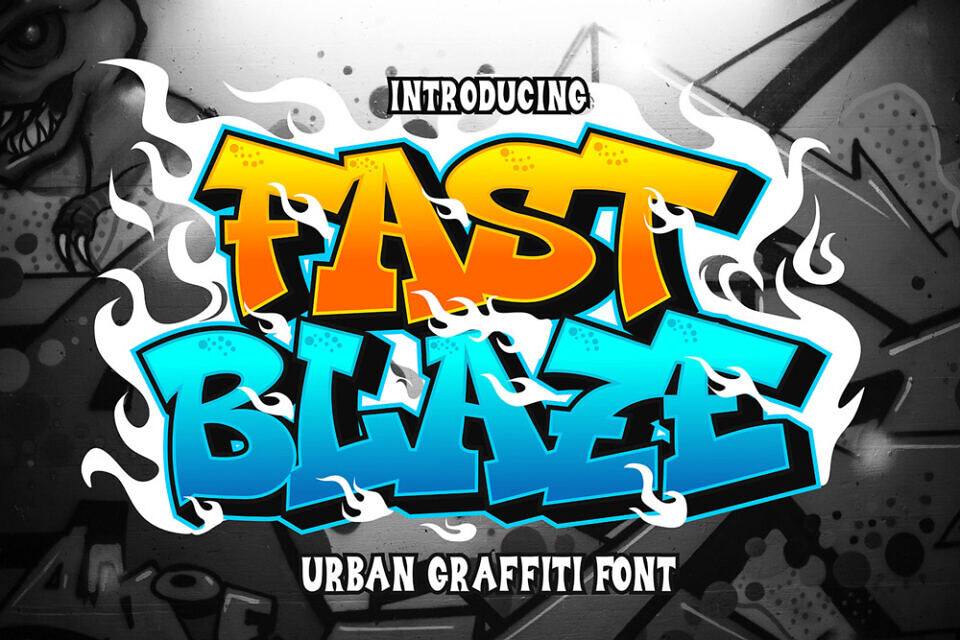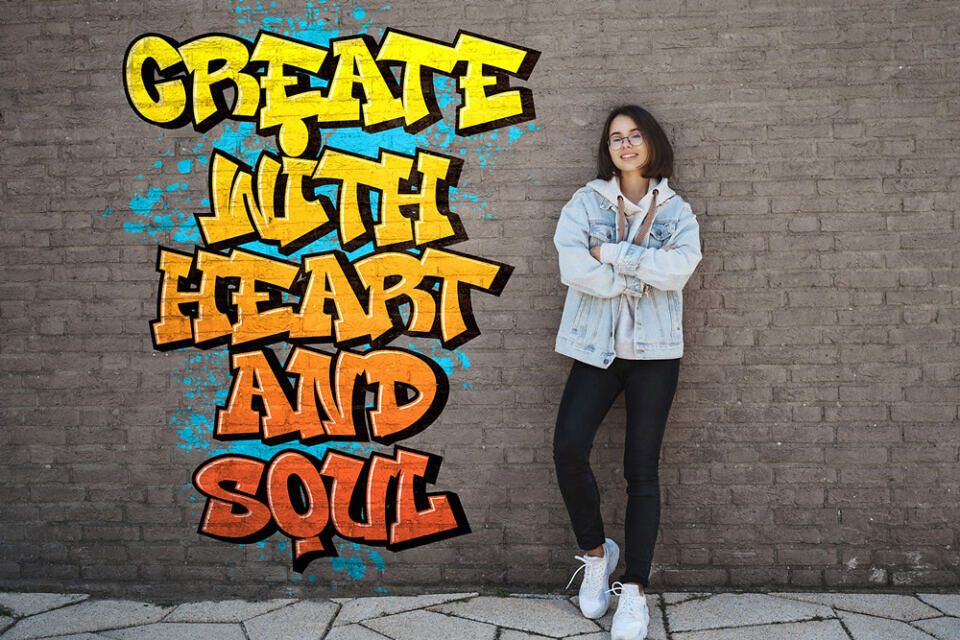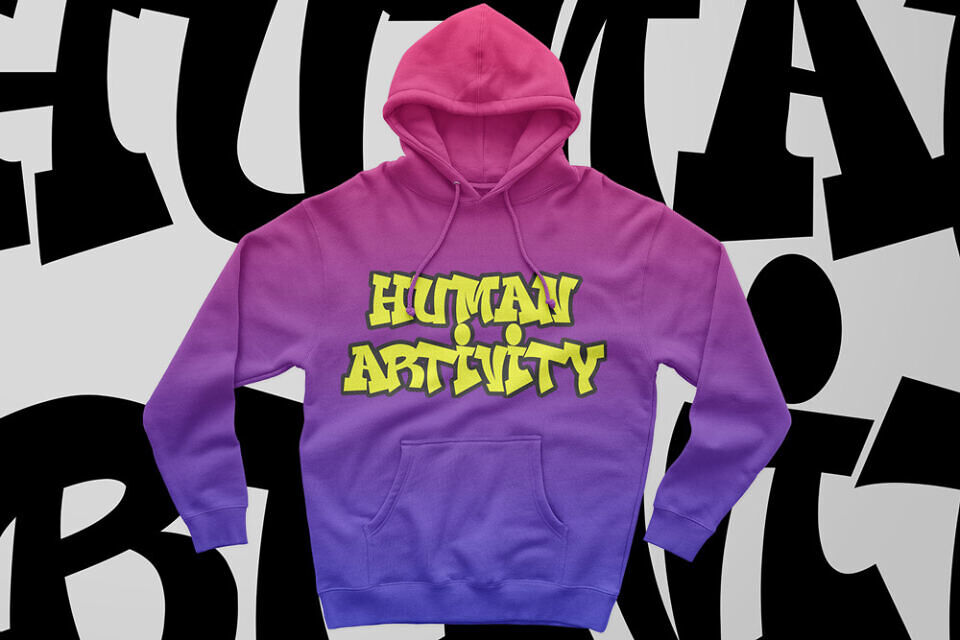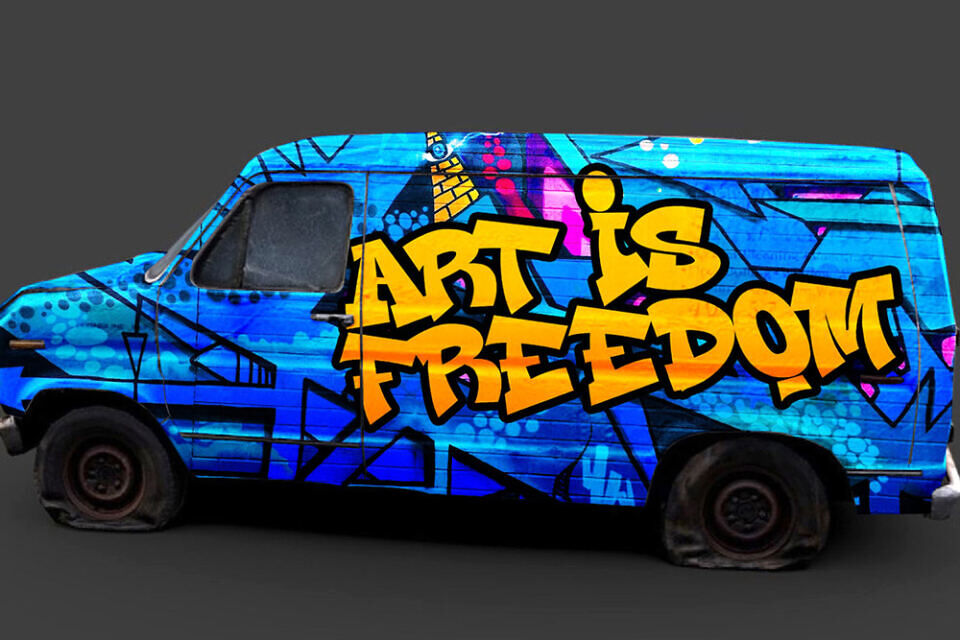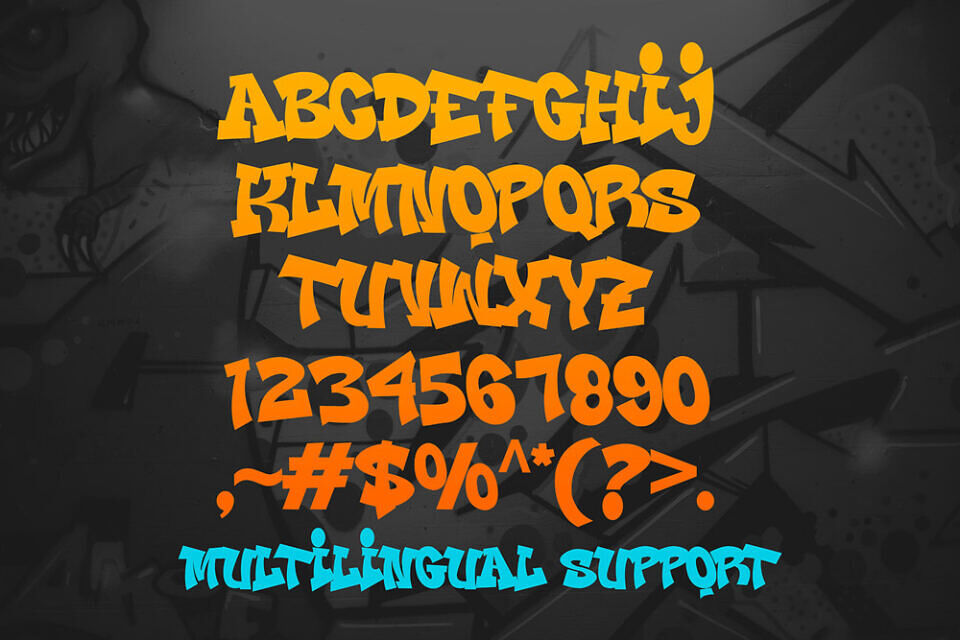
Fast Blaze is an urban graffiti font characterized by sharp edges and a bold look. Ideal for music posters, apparel designs, shirts, and streetwear, this font brings a touch of edginess to your projects.
The unique style of Fast Blaze makes it the perfect choice for death metal or urban graffiti themes. Whether you want to create a strong and powerful statement or simply add a touch of attitude to your designs Fast Blaze is the font for you.